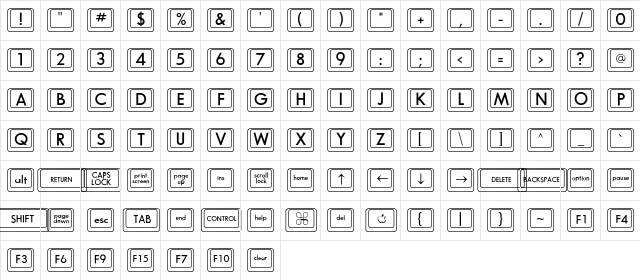
DavysKeyCaps Regular
Design Context for DavysKeyCaps Typeface
DavysKeyCaps offers clean, dependable letterforms without strong stylistic allegiance, making it a practical choice for designers who need flexibility.
Pro Tip: Use DavysKeyCaps in both headline and body roles to test its range before committing to a single application.